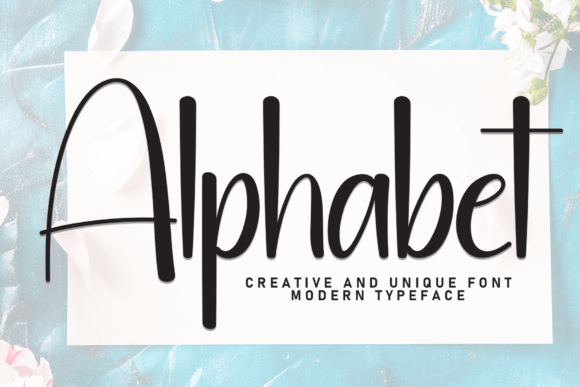
The Charm of Alphabet Font: A Delightful Handwritten Display Font
I’ll never forget the moment I stumbled upon the perfect font for a wedding invitation project. I was on a tight deadline, and my client wanted something that would make their special day feel truly unique. As I scrolled through font after font, I felt like I was stuck in a sea of sameness – until I discovered Alphabet Font. ✨ Its playful, handwritten style instantly captured the joy and friendliness I was looking for. In this article, I’ll share my love for this delightful typeface and provide a comprehensive guide on how to make the most of its charming features.
• ✨ The whimsical and playful style that adds a touch of fun to any design project
• ✅ The adorable quirks and character variations that make each keystroke unique
• 💕 The ability to evoke feelings of joy and friendliness, perfect for heartwarming projects
• 🎉 The versatility to work well in various design contexts, from wedding invitations to social media graphics
While Alphabet Font is a delightful typeface, it’s not without its quirks. ⚠️ Some users may find that the font’s playful style can be overwhelming in large blocks of text. Additionally, the font’s handwritten nature means that it may not be the best choice for very formal or professional projects. 🤔
Alphabet Font was designed with the intention of capturing the joy and playfulness of handwritten communication. The designer, inspired by the charm of vintage letters and postcards, aimed to create a typeface that would bring a smile to the reader’s face. With its adorable quirks and character variations, Alphabet Font is sure to delight designers and readers alike.
Q: What is Alphabet Font best suited for?
A: Alphabet Font is perfect for design projects that require a playful, friendly touch, such as wedding invitations, social media graphics, and card messages.